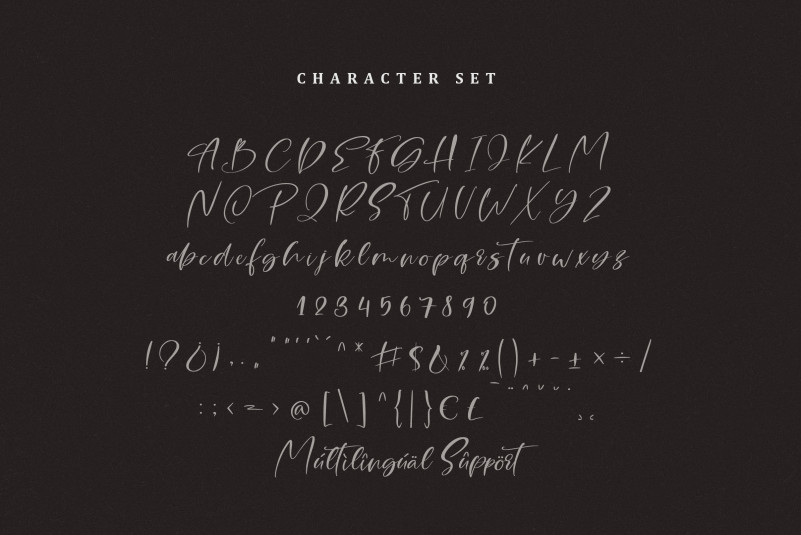
Callindo Font
Callindo Script Font – Its delicate design features graceful, sweeping strokes and intricate flourishes that evoke a sense of romance and refinement. Perfect for wedding invitations, elegant branding, and other sophisticated designs. This font is PUA encoded which means you can access all glyphs and swashes effortlessly!
– Uppercase, Lowercase, Numeral & Punctuation
– Alternate Letters, Ligature & Swash/Tail
– Multilingual & PUA Encoded